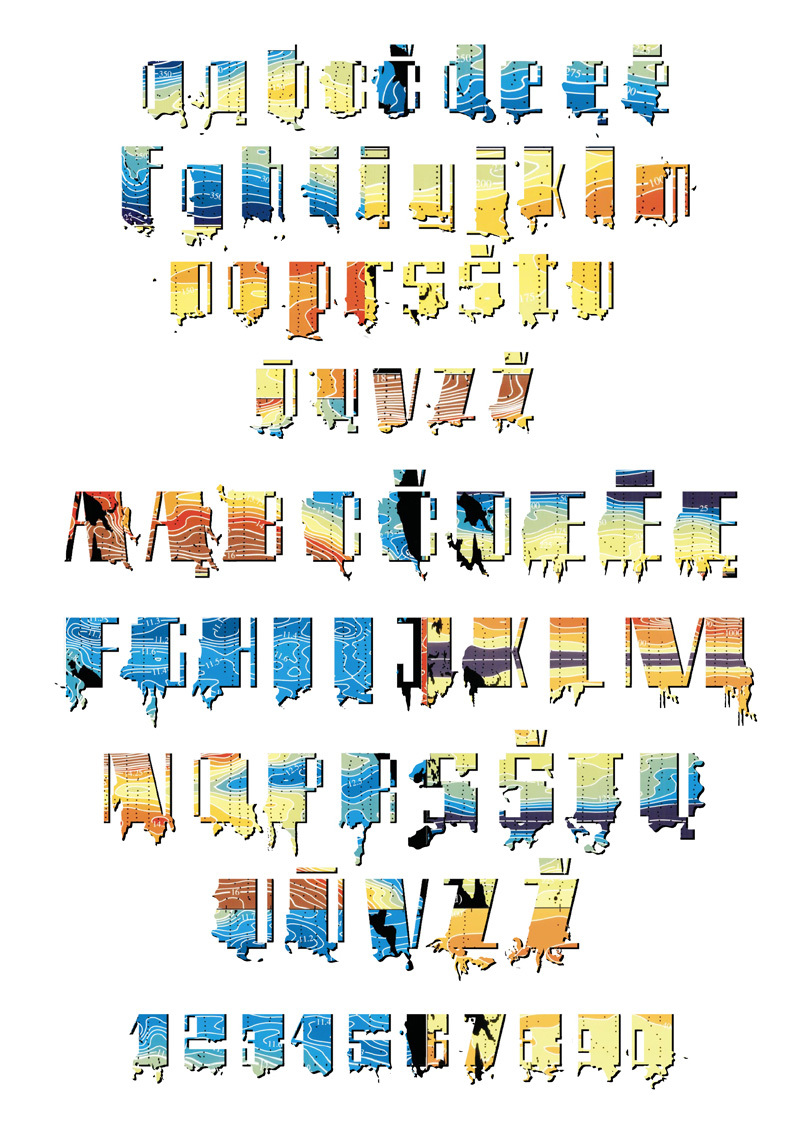
Map by ROCI is a free distorted display font built from massive, tightly packed letterforms. Ragged edges, broken corners, and long ink-like drips give the otherwise squared construction the look of damaged posters or roughly painted signage.
It is strongest on music posters, where its dense silhouette turns a headline into part of the artwork, and also suits album covers. The scraped texture fits punk, industrial, and horror themes on festival merchandise and game promotions.